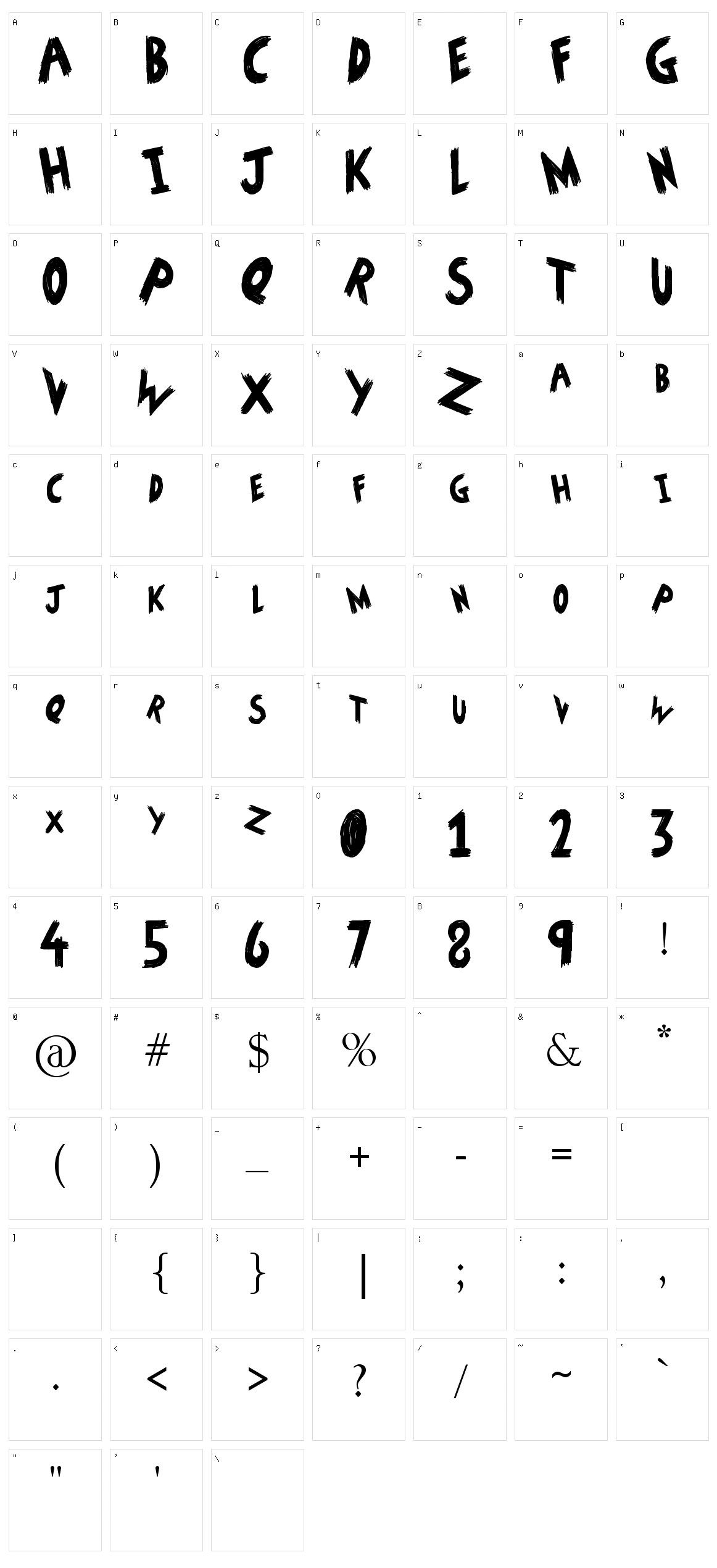
The free font How To Do Something is carefully designed by JSH creates, showcasing a thoughtful balance of creativity and usability and falls under the Trash font style. When you download the ZIP file, it contains only 44.99 KB of font files, making it lightweight and quick to download. Please review the license details below to understand permitted usage and distribution rights. If license information is not available, we recommend using this font for personal projects only or contacting the author directly for commercial usage permissions.